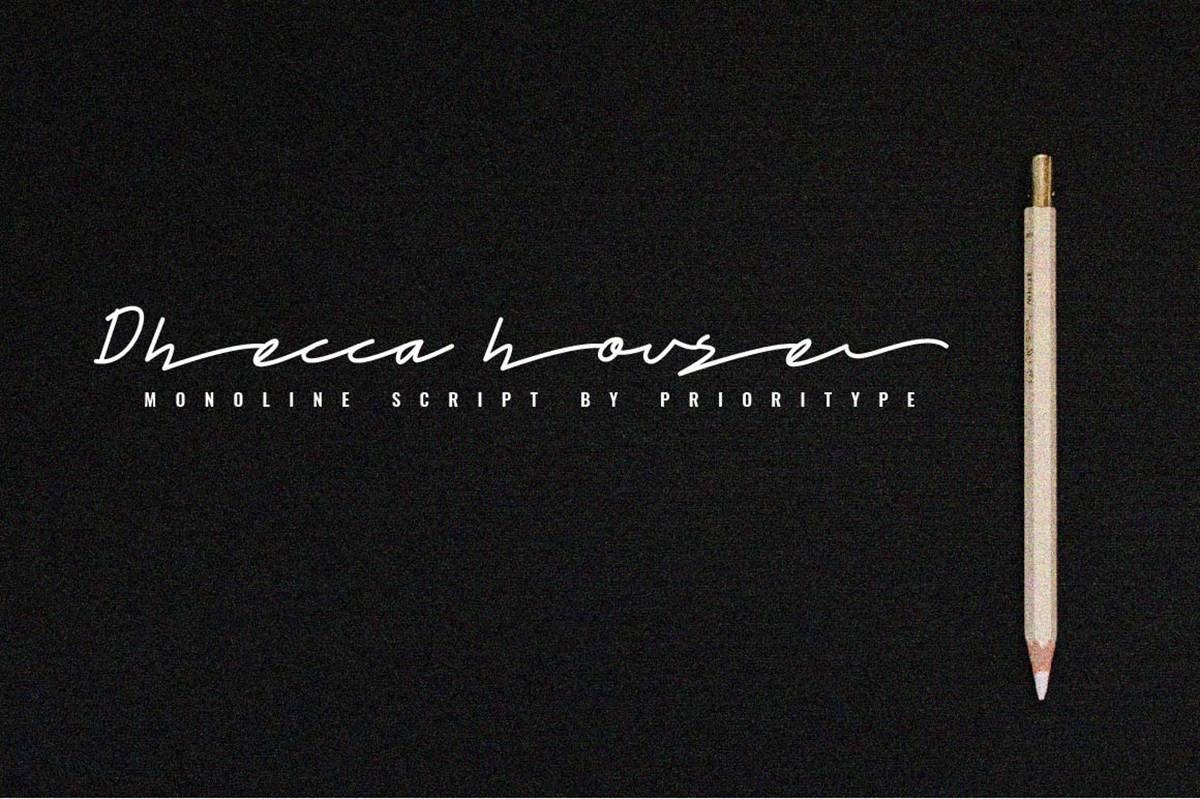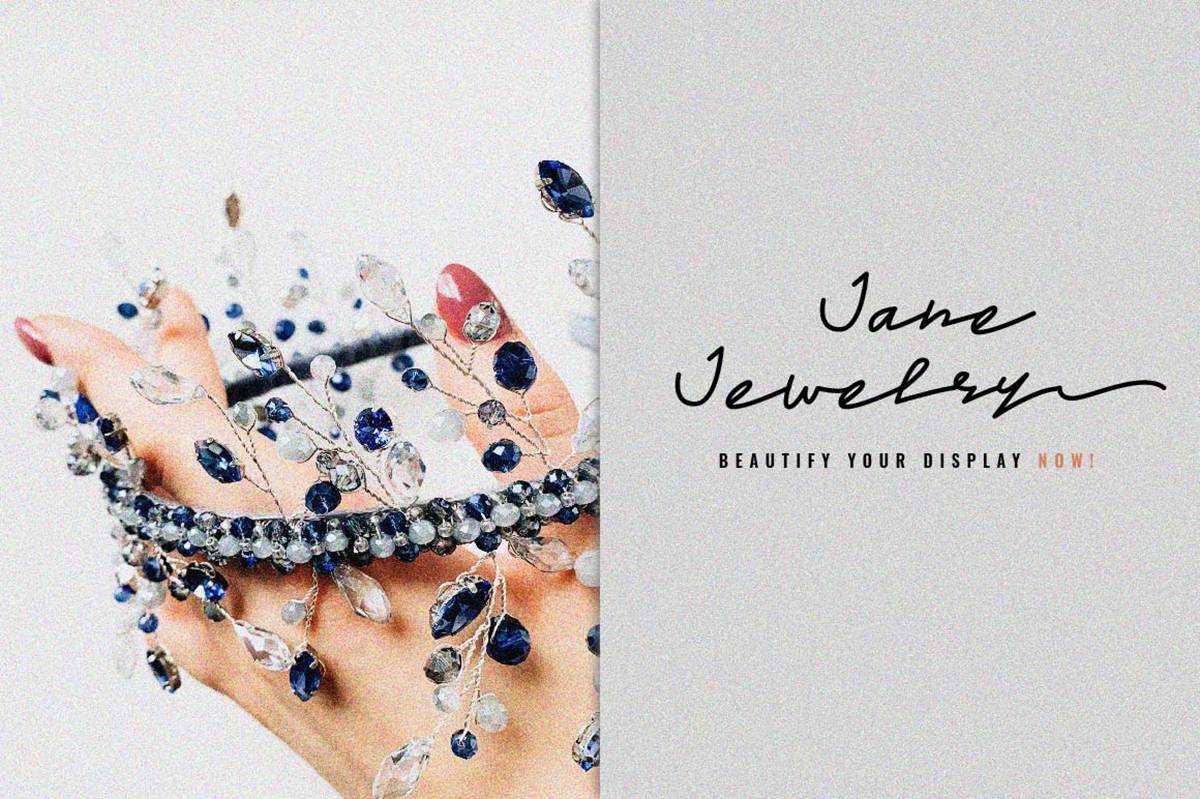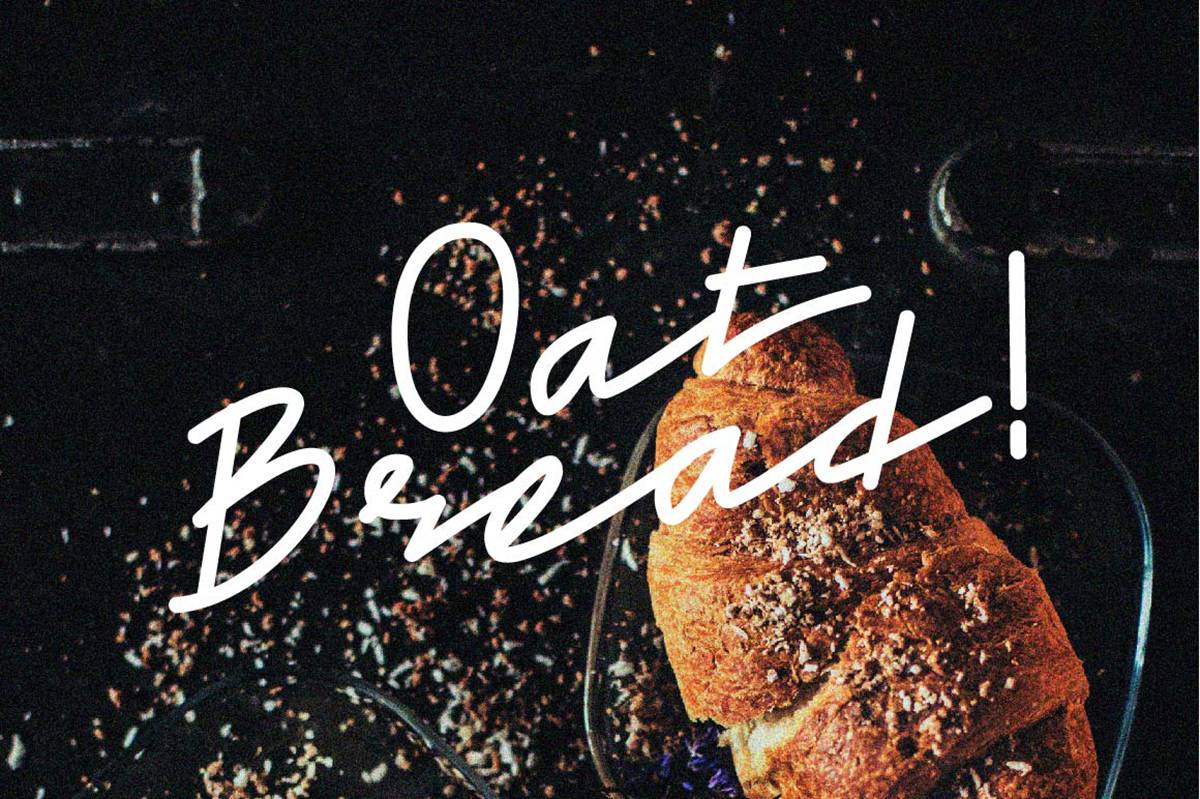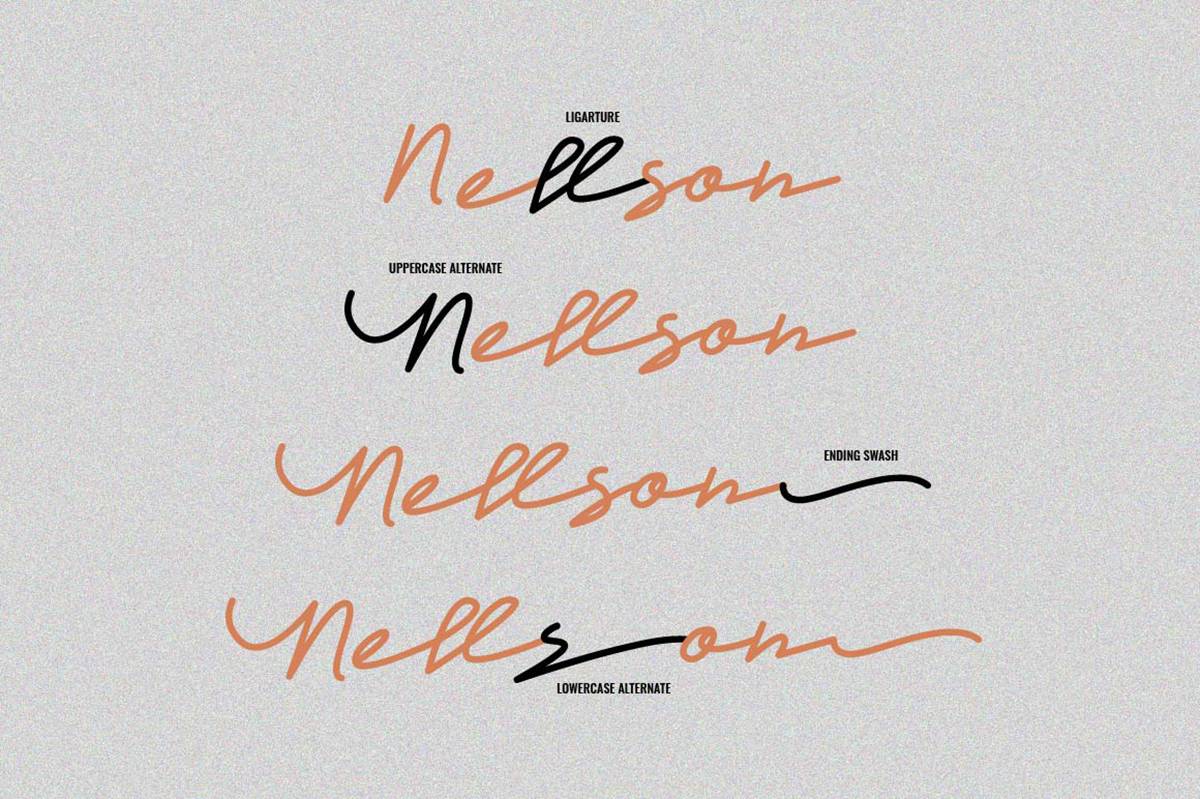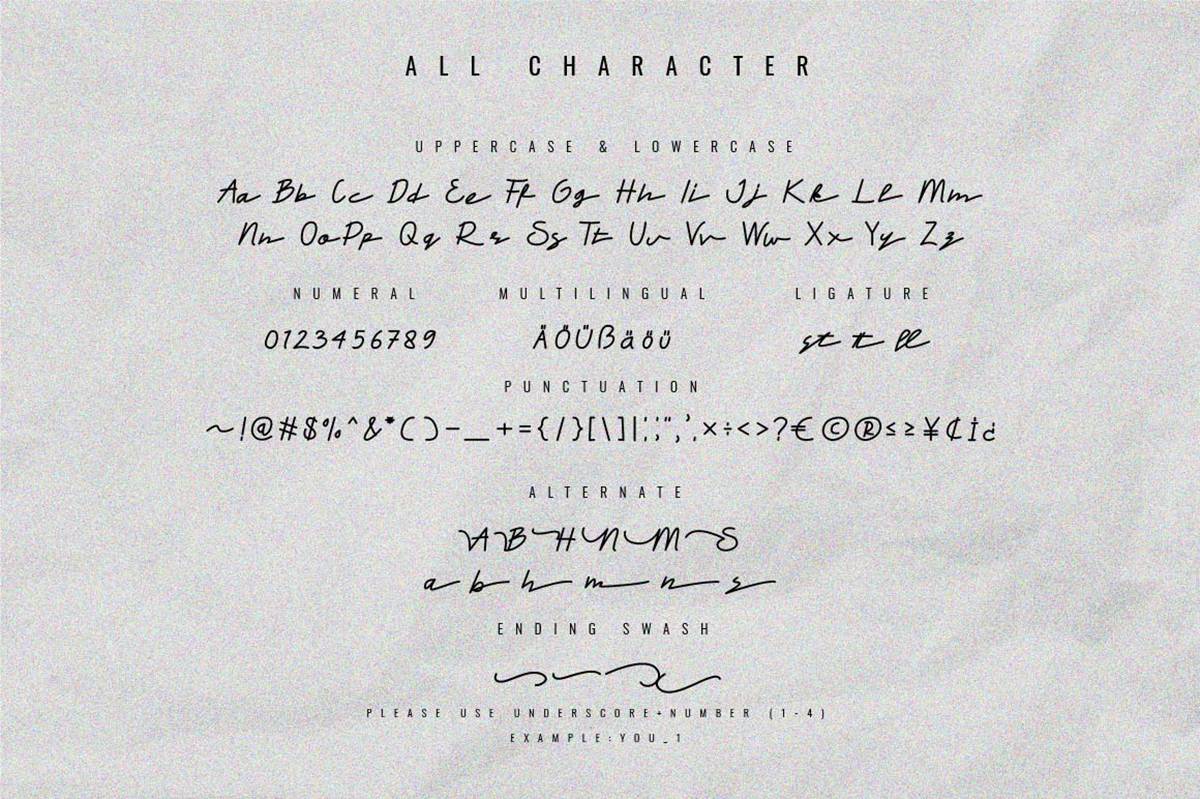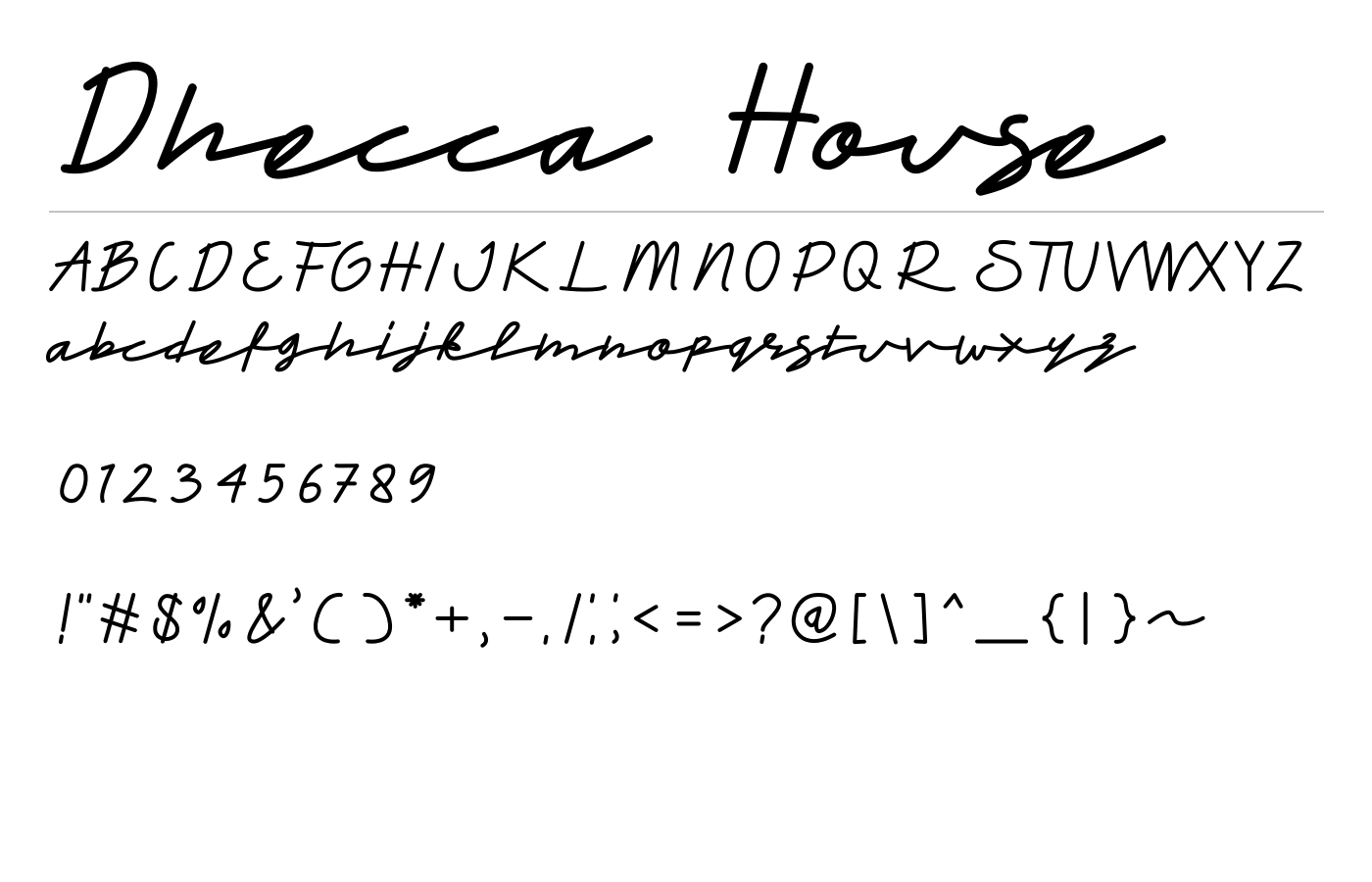
Dhecca House is a casual, handwritten script font with a friendly and approachable feel, featuring smooth, slightly irregular strokes that mimic natural handwriting. Its slender, airy letterforms and flowing connections make it ideal for designs that seek a personal touch, such as invitations, lifestyle branding, or informal editorial work. This font works best for headlines and creative projects where warmth and individuality are desired.
Dhecca House Font
About Dhecca House Font
| Designer | Prio Nurokhim Aji |